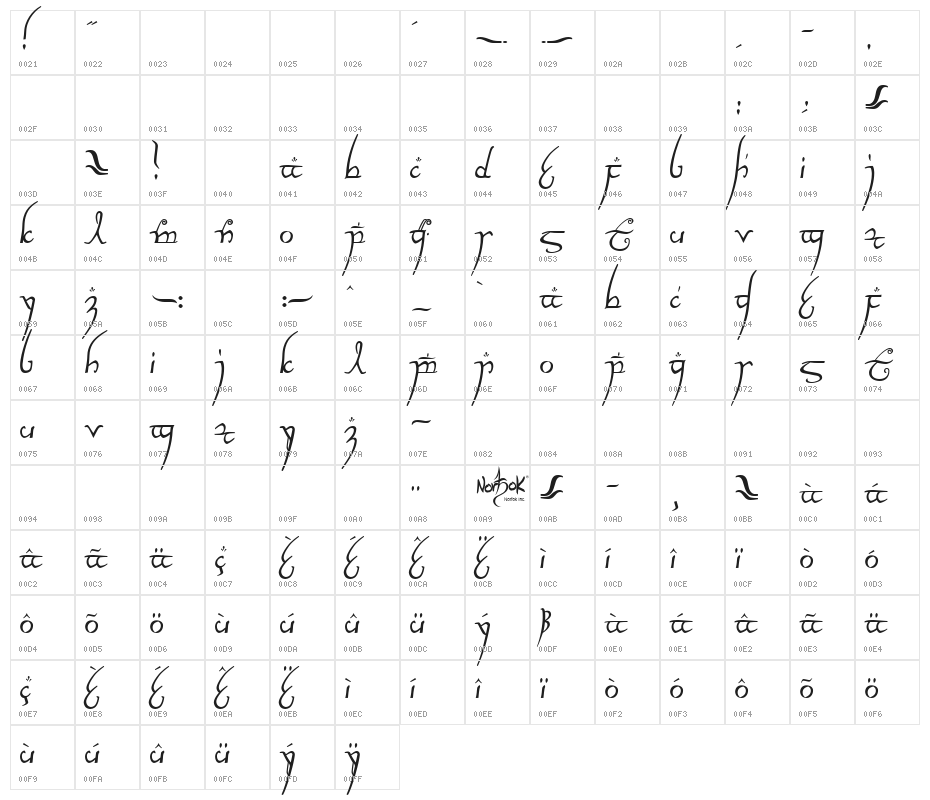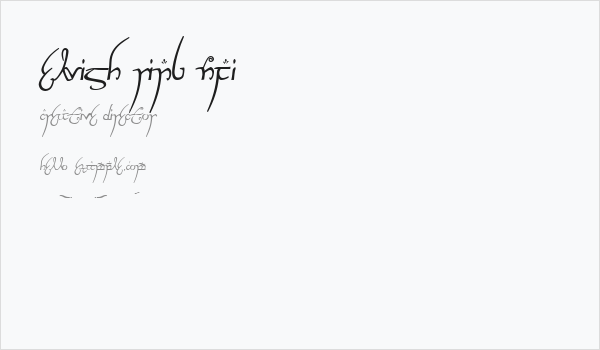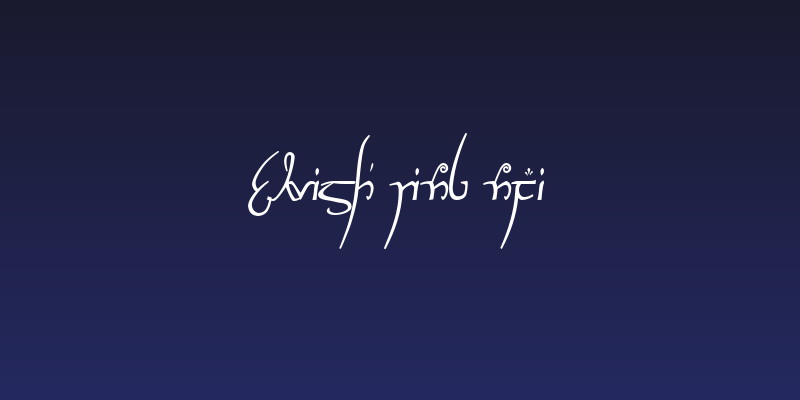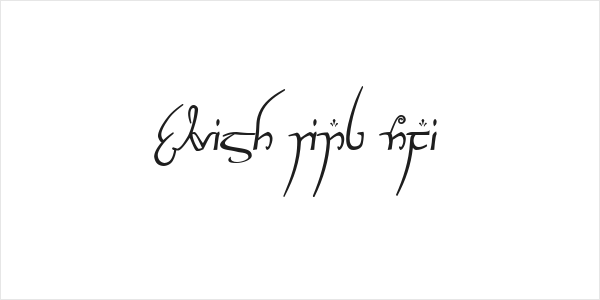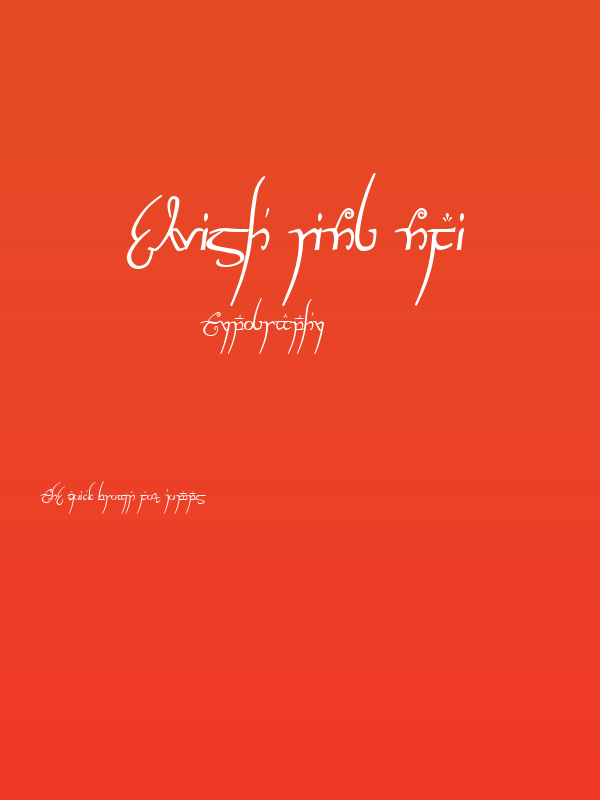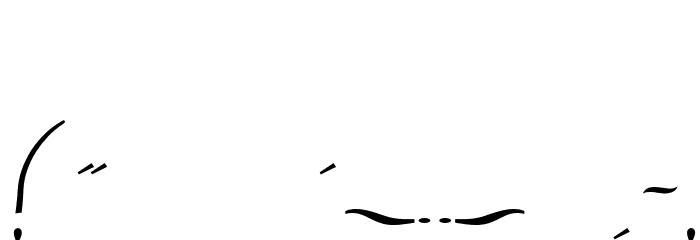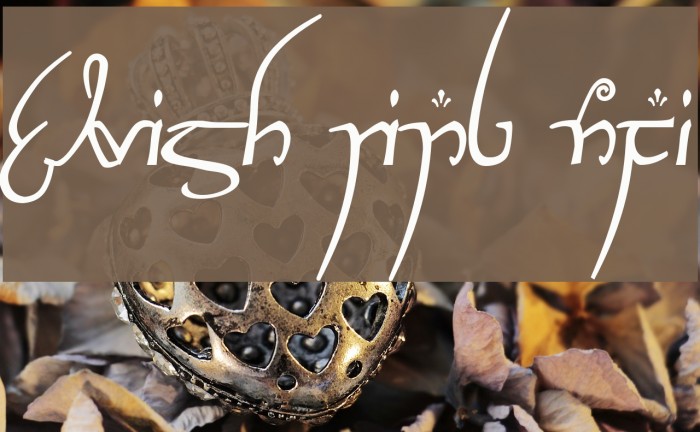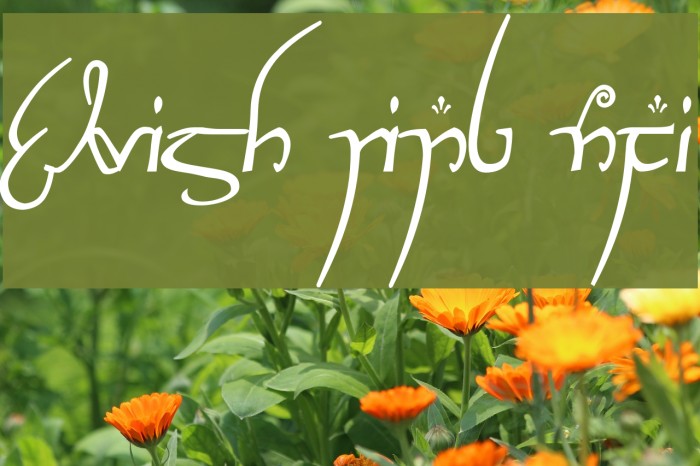
Elvish Ring NFI Font
Elvish Ring NFI Description
This font features an intricate and decorative style reminiscent of ancient scripts, with flowing lines and elegant curves. The characters are adorned with unique flourishes and embellishments, giving it a mystical and enchanting appearance. The font's design is highly stylized, with an emphasis on artistic expression and visual impact. Each letter is crafted with attention to detail, creating a cohesive and harmonious look that evokes a sense of fantasy and otherworldliness. The overall aesthetic is both sophisticated and whimsical, making it ideal for projects that require a touch of magic and elegance.
| Use Case | Logos, Headlines, Decorative text |
| Proposed Projects | Ideal for fantasy-themed designs, book covers, movie posters, and invitations. |